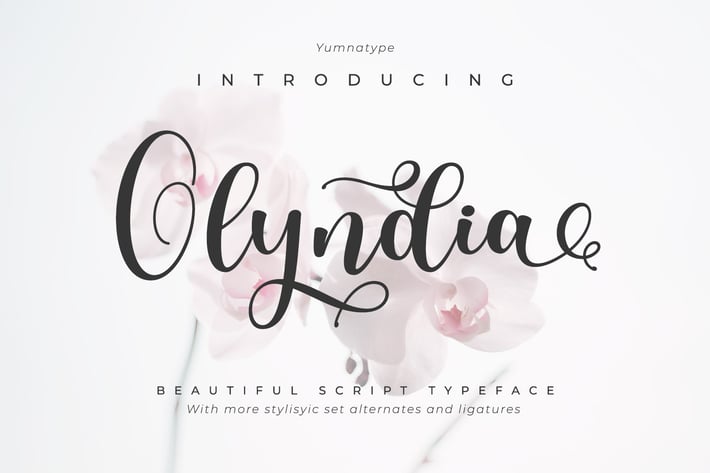
Olyndra - Beautiful Script Font
YumnaStudio
Olyndra is a beautiful script font with a natural and unique design will make your project more beautiful and powerful. The font is suitable for your branding project and any design.
- 10 Alternates
- 52 Swashes
- 6 ligarures